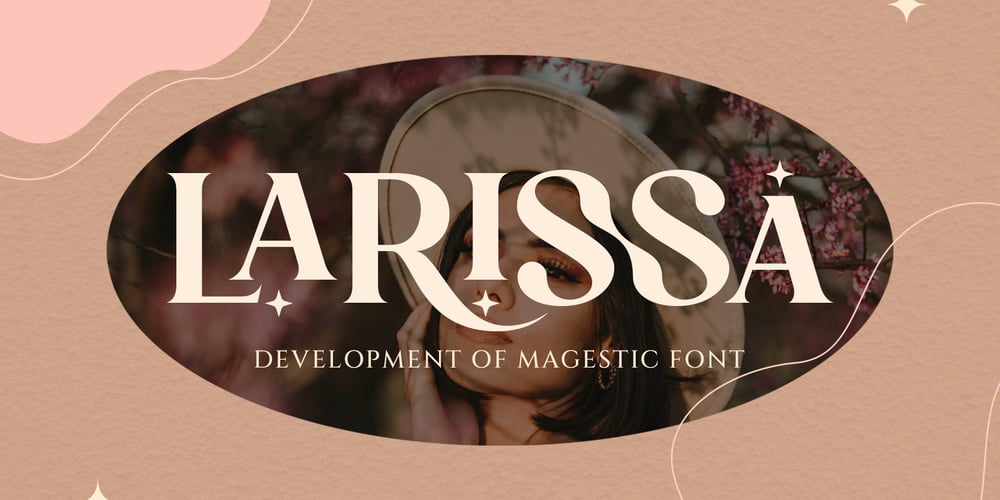
Larissa
Larissa font
Larissa Font Family was designed by Graphicxell and published by Graphicxell. Larissa contains 1 styles and family package options. Larissa Serif Typeface inspired by the famous minimalist logo perfect for the purposes of designing templates, brochures, videos, advertising branding, logos and more.What’s Included :+ Standard glyphs+ Web Font+ Ligatures+ International Accent+ Works on PC & Mac+ Simple installationsAccessible in the Adobe Illustrator, Adobe Photoshop, Adobe InDesign, even work on Microsoft Word.PUA Encoded Characters – Fully accessible without additional design software.Fonts include multilingual supportImage used : All photographs/pictures/vector used in the preview are not included, they are intended for illustration purpose only.Thank You